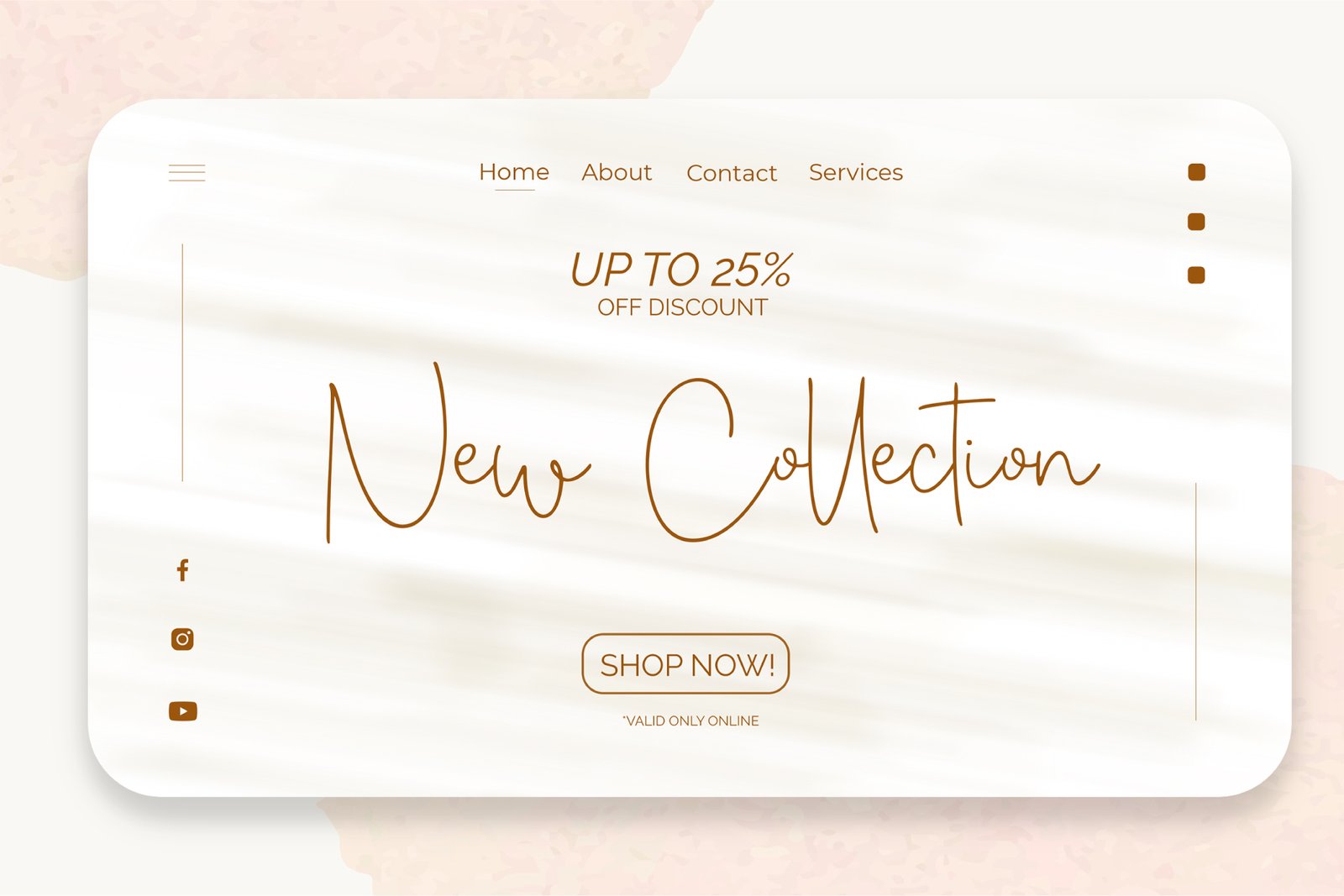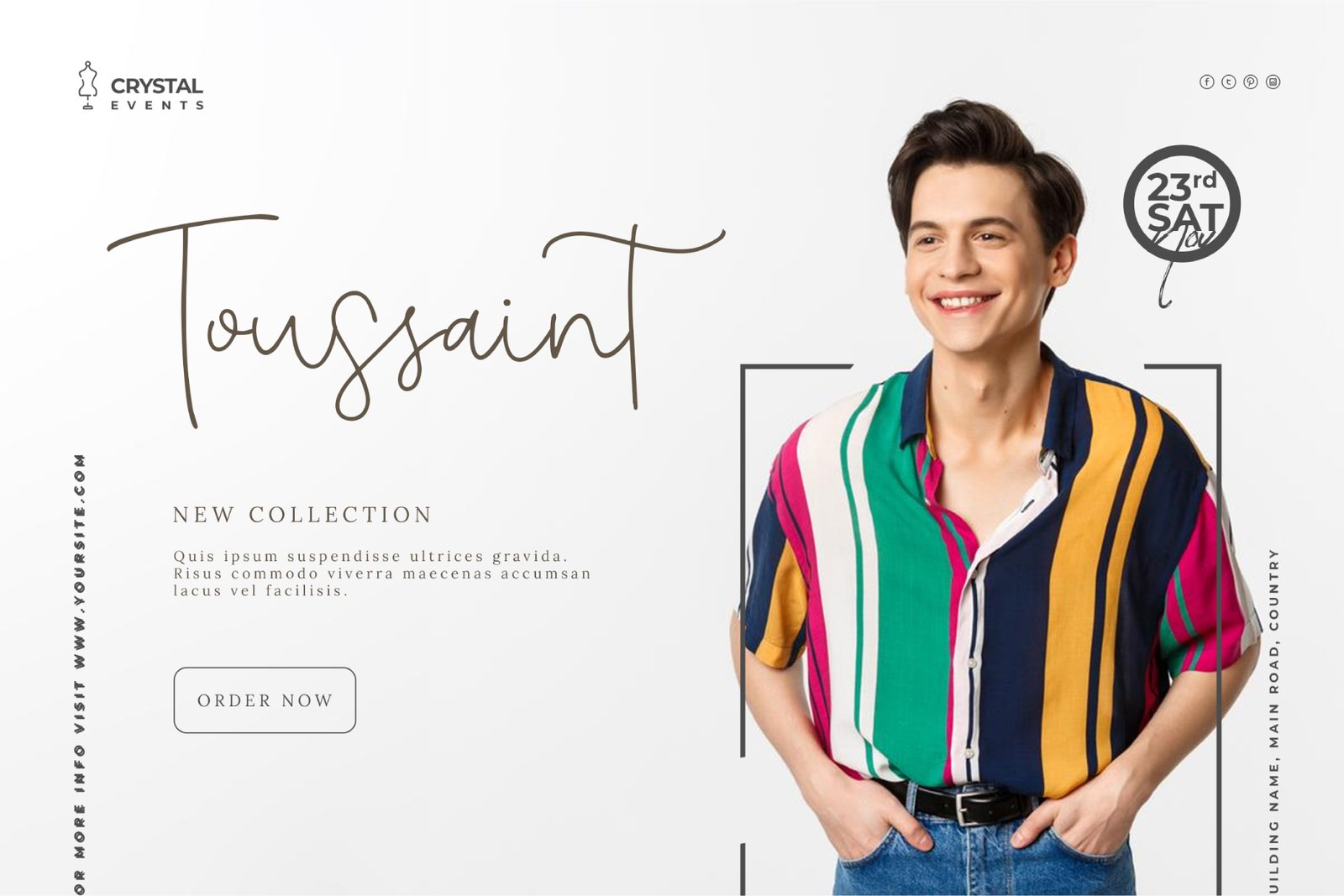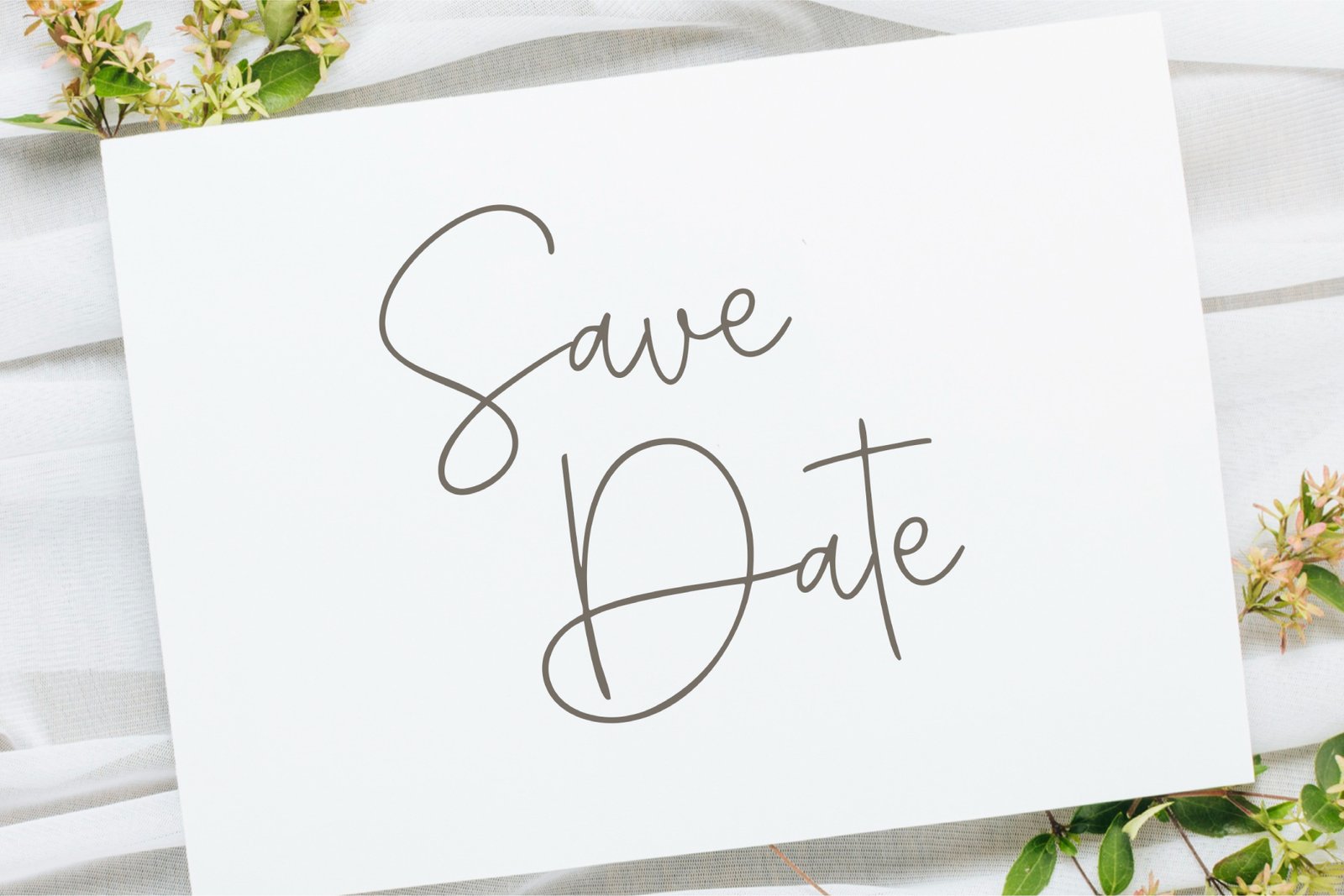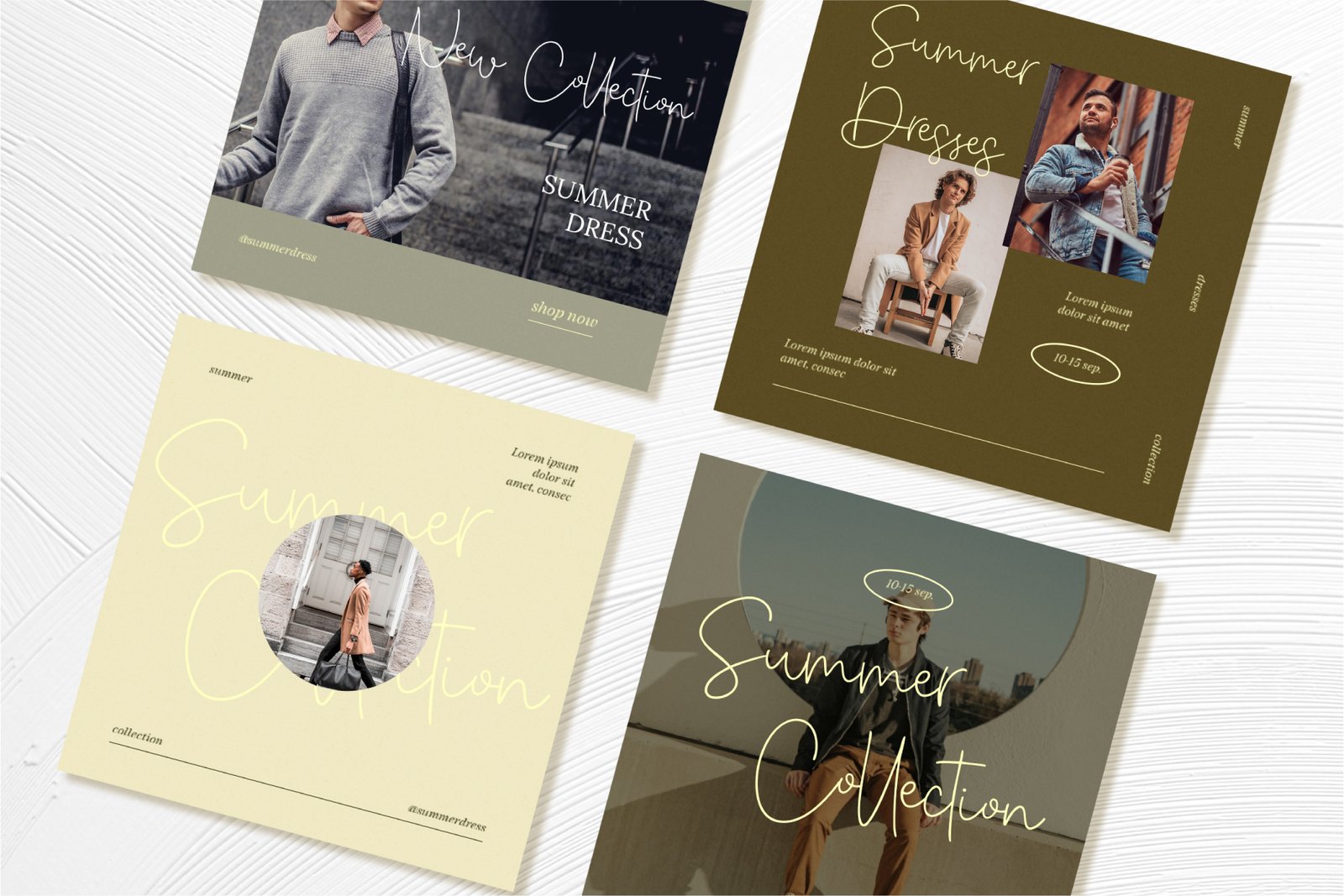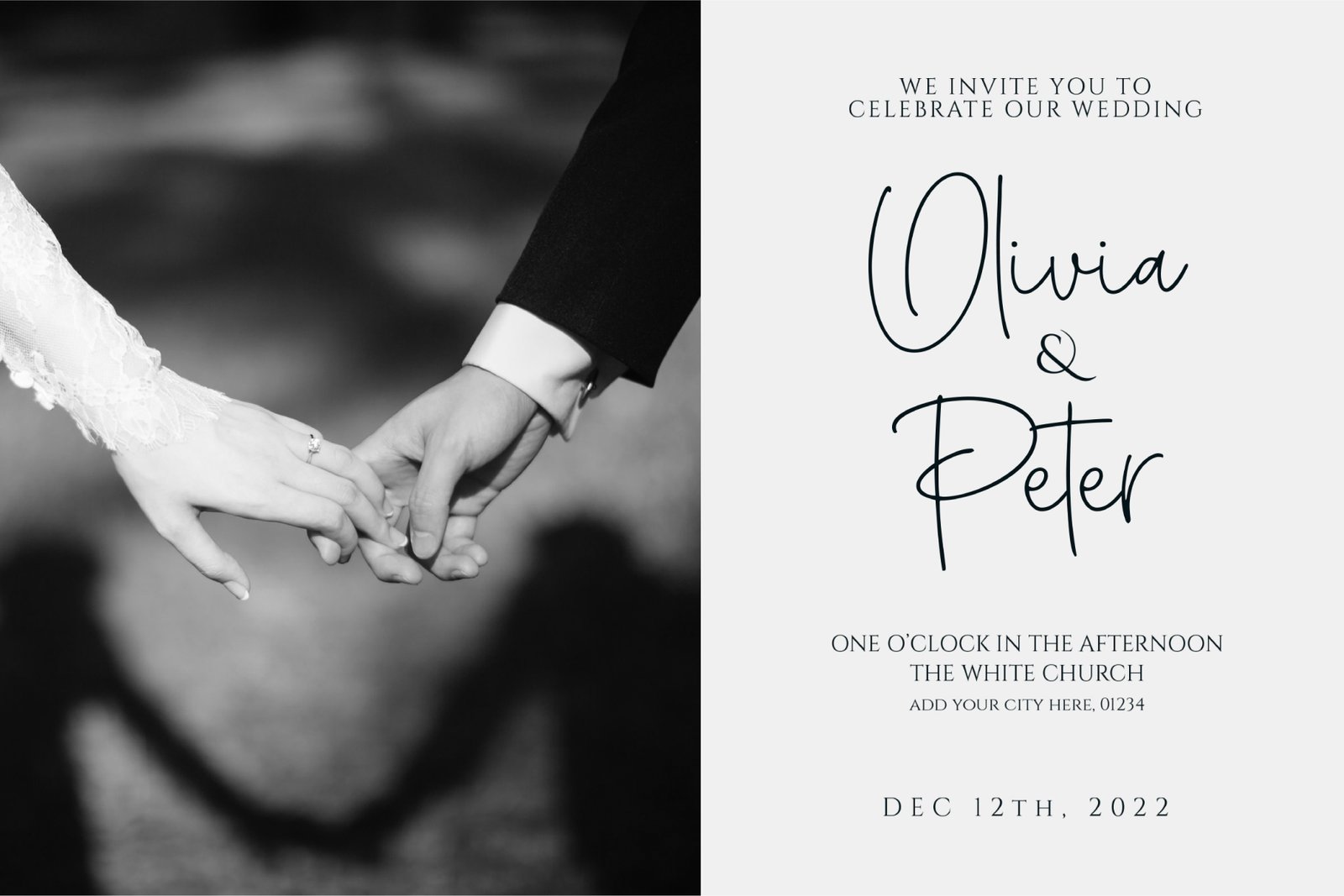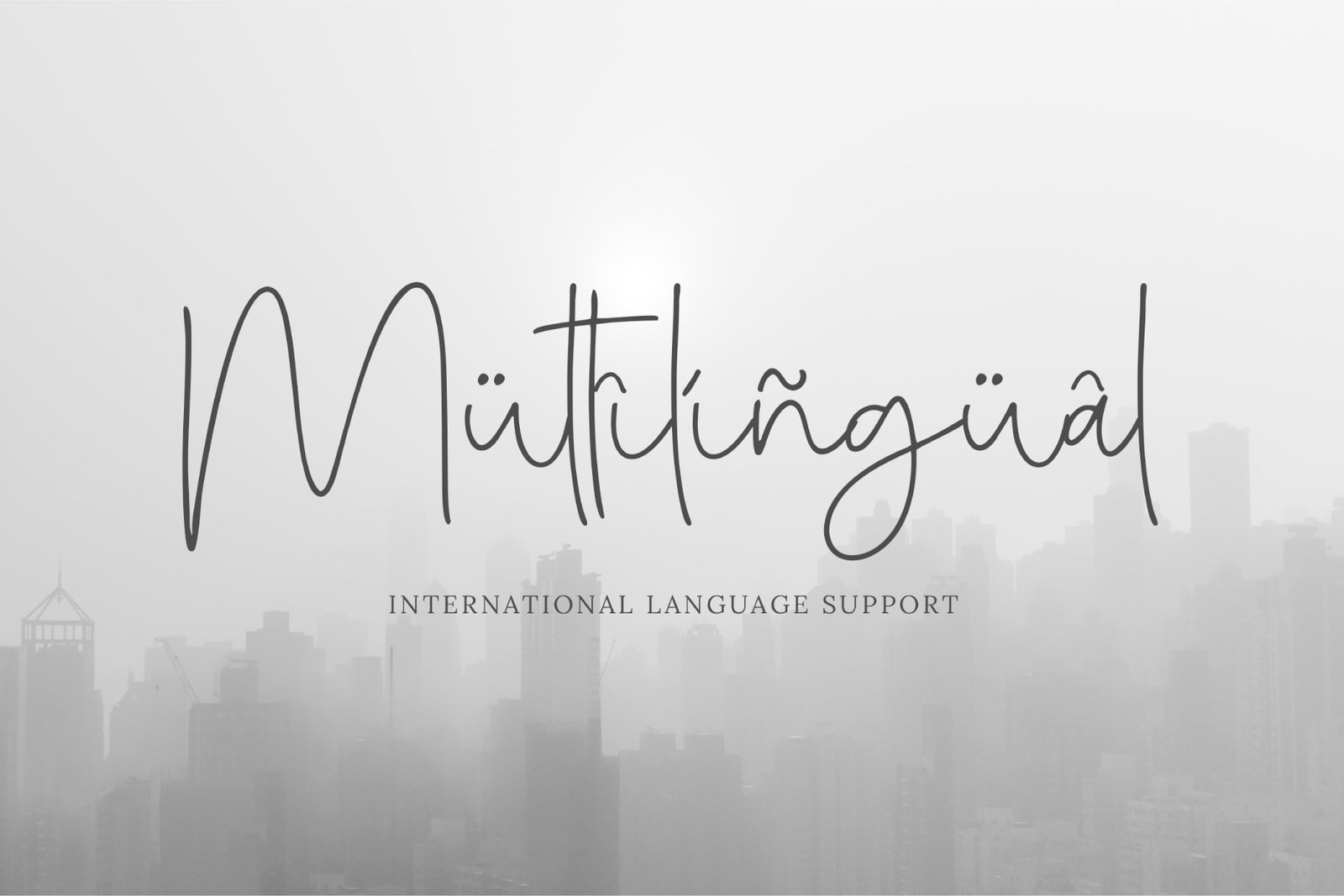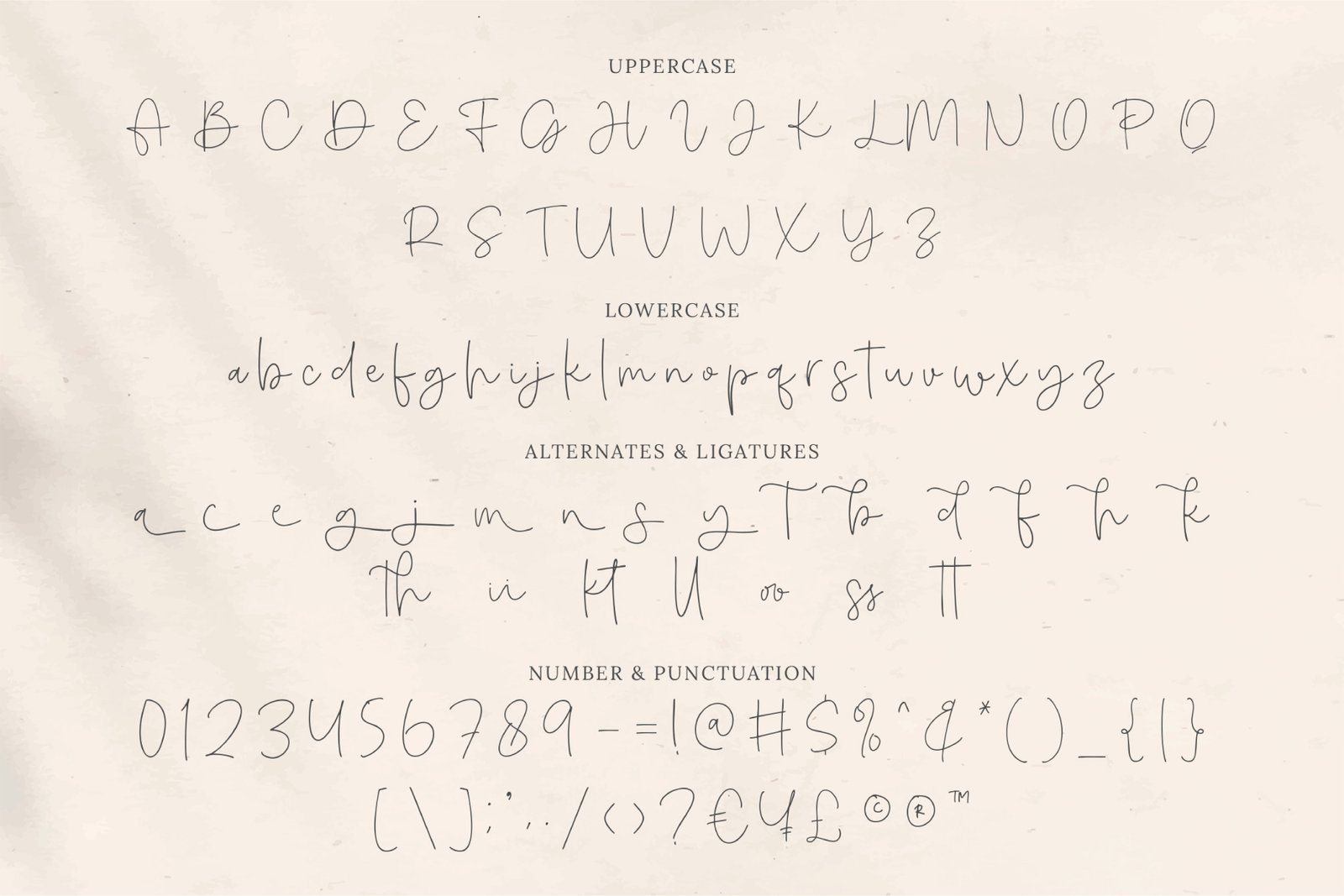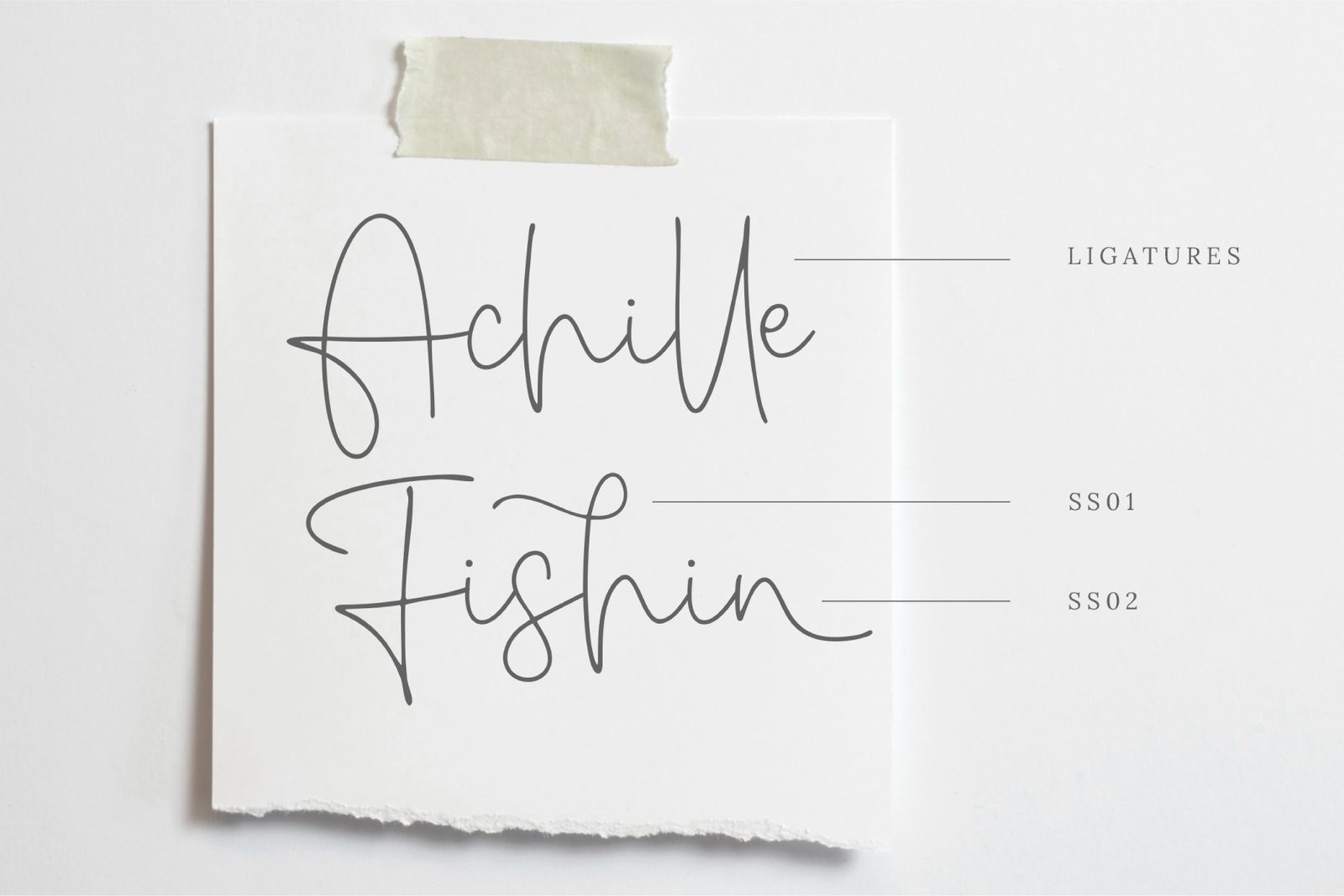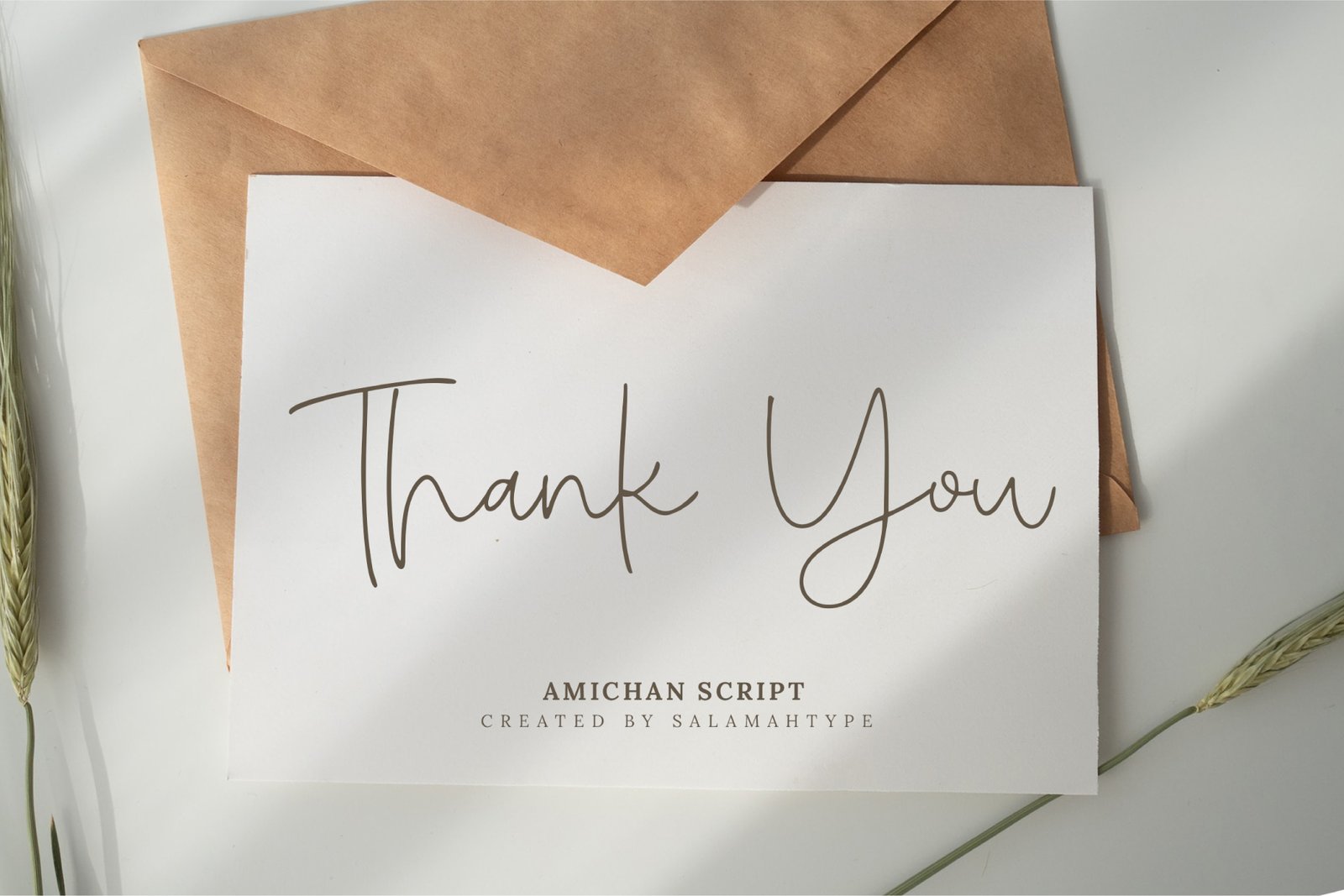
Amichan Monoline Script
Introducing our script "Amichan" - An elegant and beautiful monoline typeface is perfect for websites, modern logos, brand identities, social media, quotes, wedding invitations and anything you want!Features :
• Uppercase & lowercase
• Punctuation & symbol
• Alternates
• Ligatures
• Multilingual characters